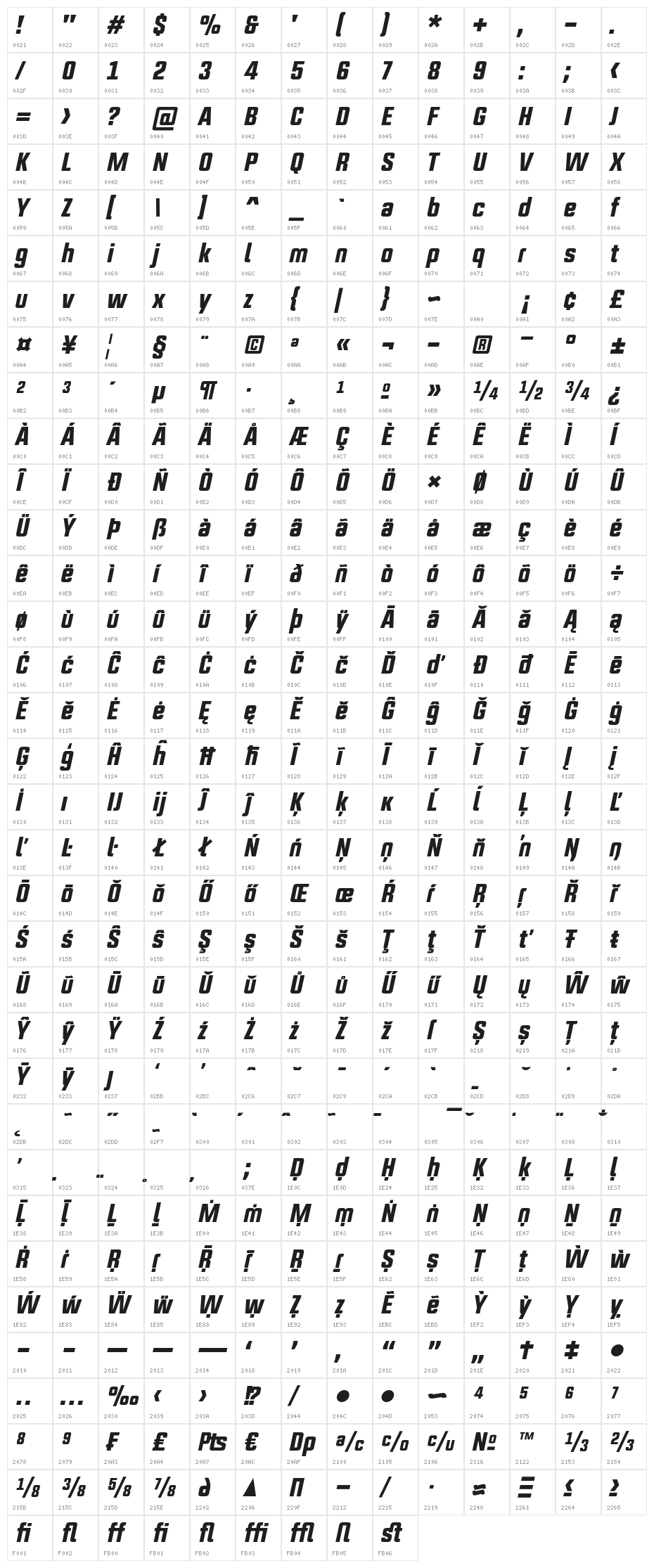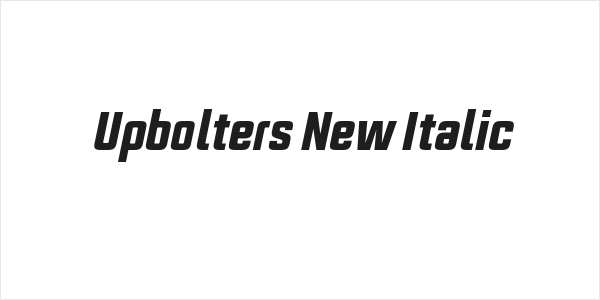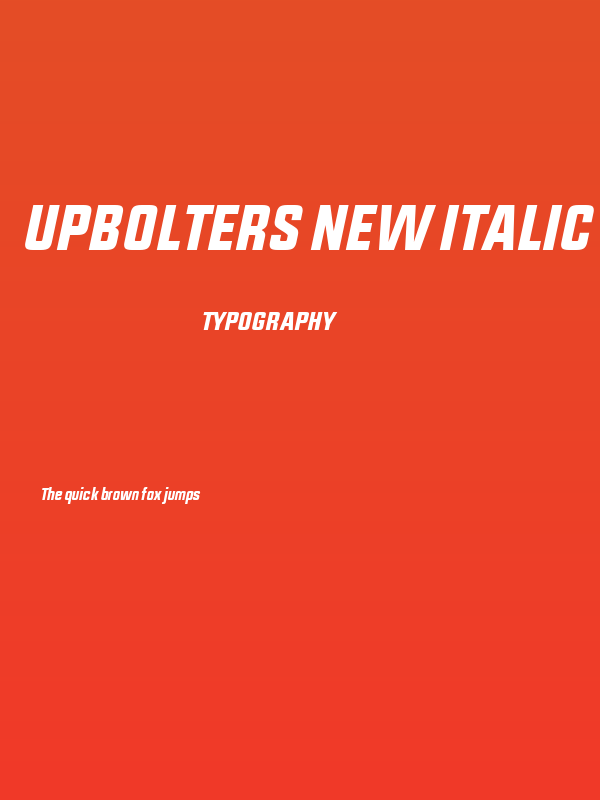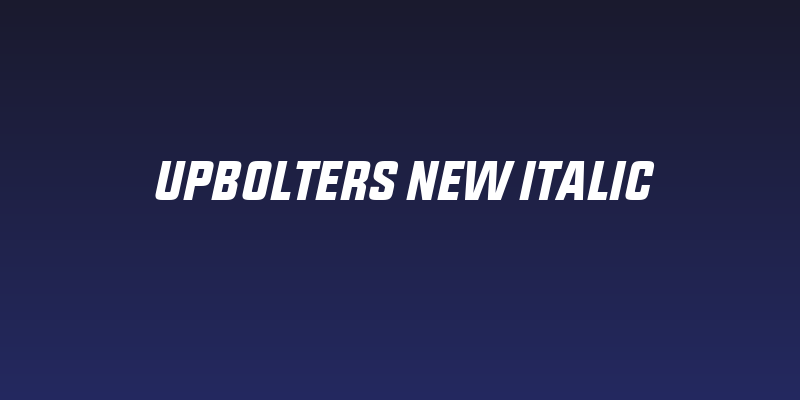
Upbolters New Italic Font
Upbolters New Italic Description
This font features a bold and dynamic italic style, characterized by its strong, angular lines and modern aesthetic. The uppercase and lowercase letters maintain a consistent slant, giving a sense of motion and energy. The numerals and special characters follow the same stylistic cues, ensuring uniformity across all glyphs. The strokes are thick, providing a robust appearance, while the spacing between characters is moderately tight, enhancing the compact and impactful look. This font is ideal for projects that require a contemporary and assertive typeface.
| Proposed Projects | Ideal for sports branding, dynamic posters, modern advertising, and tech-related designs. |